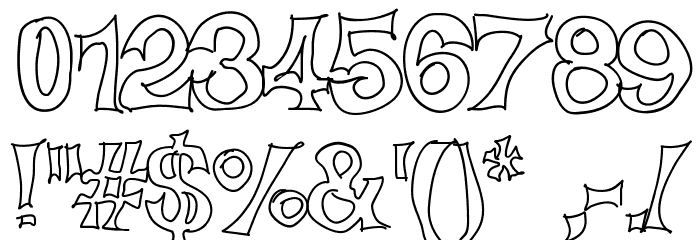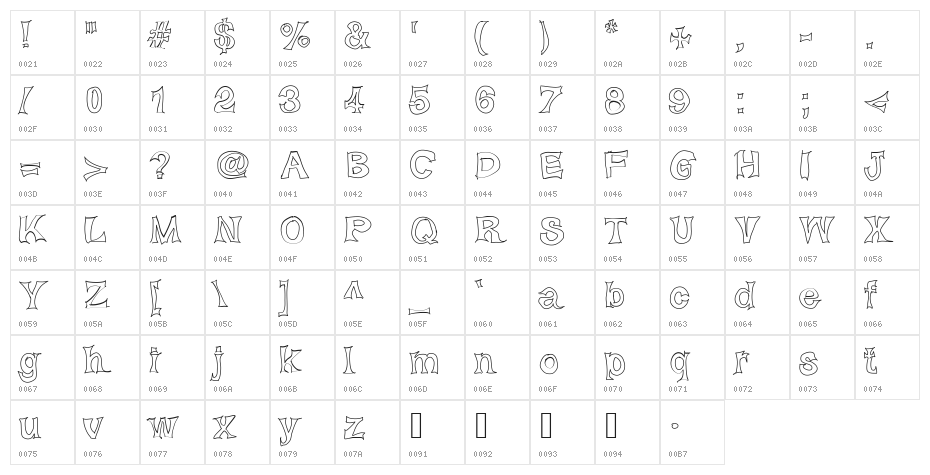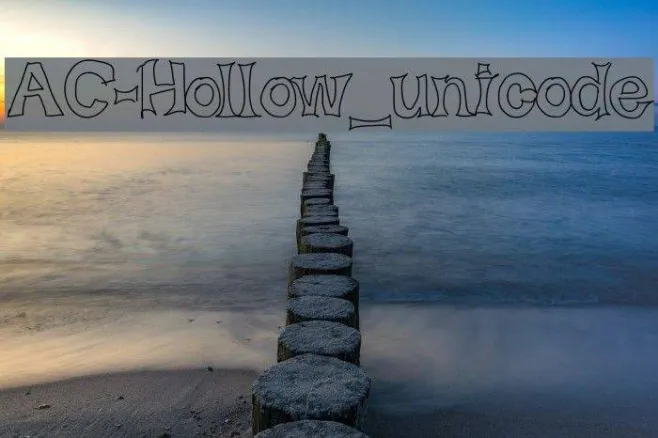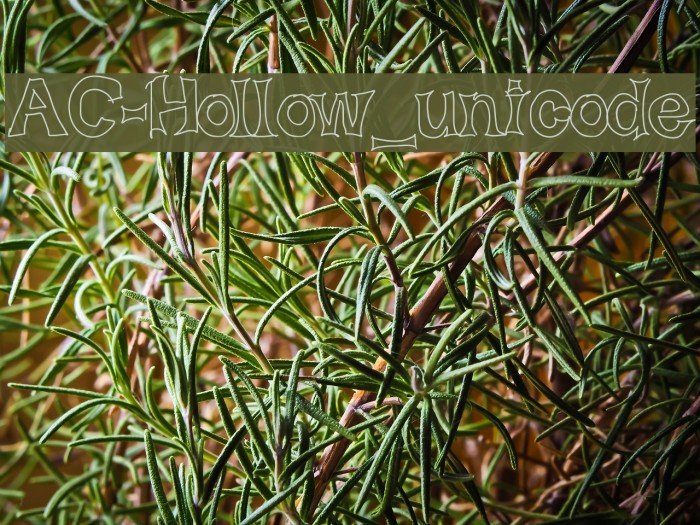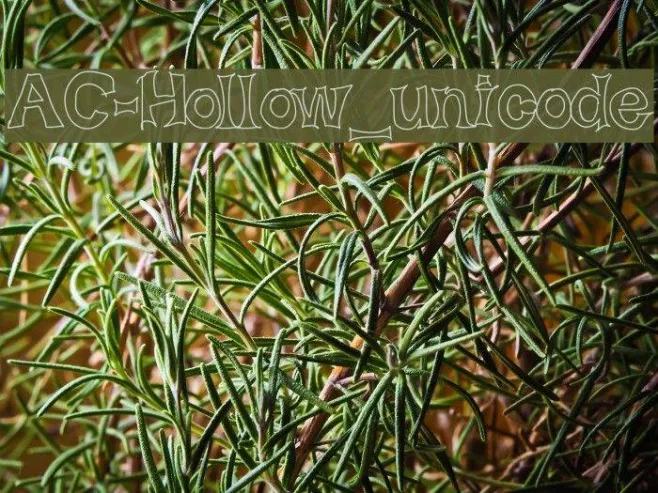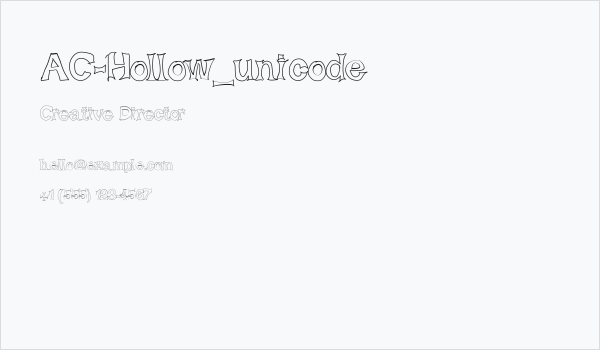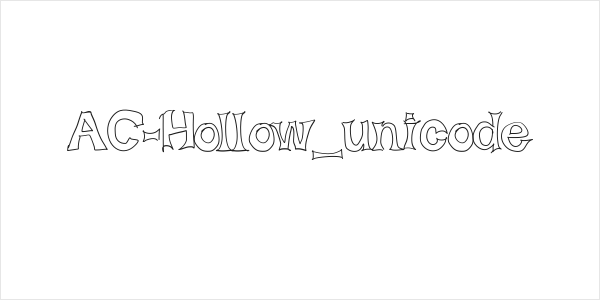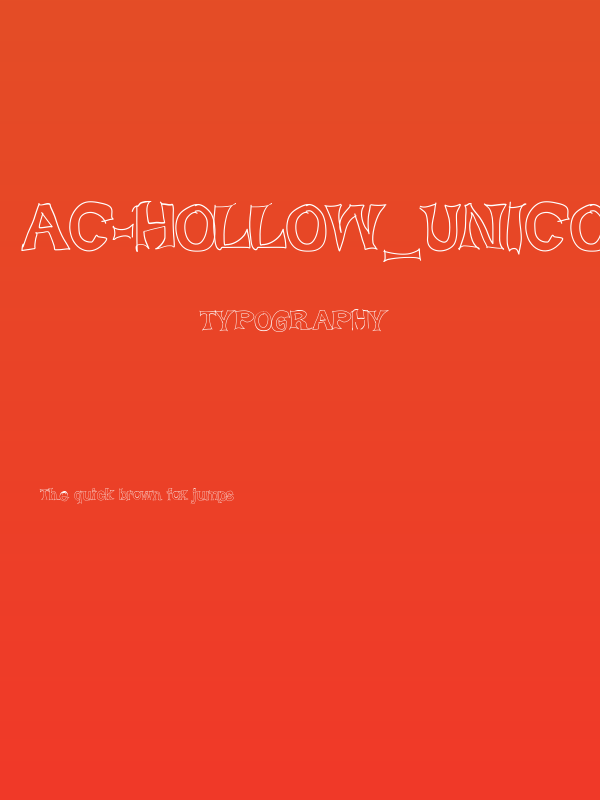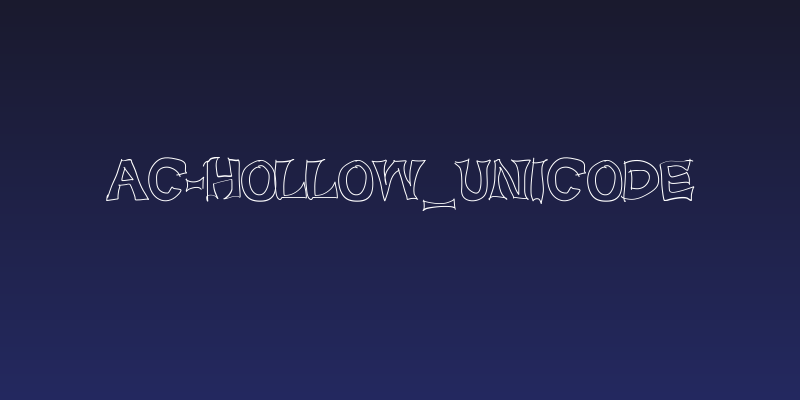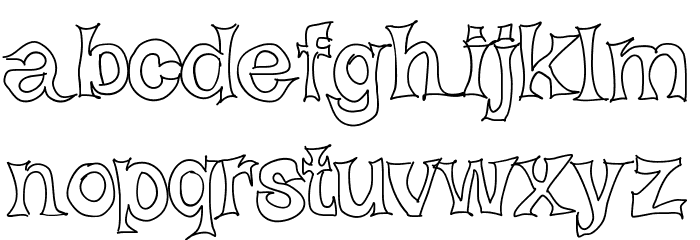
AC-Hollow_unicode Font
AC-Hollow_unicode Description
This font features a unique, hollow design with a playful and artistic flair. The characters are outlined with a bold, hand-drawn style that gives them a whimsical and slightly edgy appearance. The uppercase and lowercase letters maintain a consistent style, with exaggerated curves and angles that add to the font's distinctive look. The numbers and special characters follow the same design principles, ensuring a cohesive appearance across all glyphs. This font's hollow nature makes it ideal for creative projects where a bold yet airy look is desired.
| Proposed Projects | Ideal for creative projects such as posters, album covers, children's book illustrations, and playful branding. |